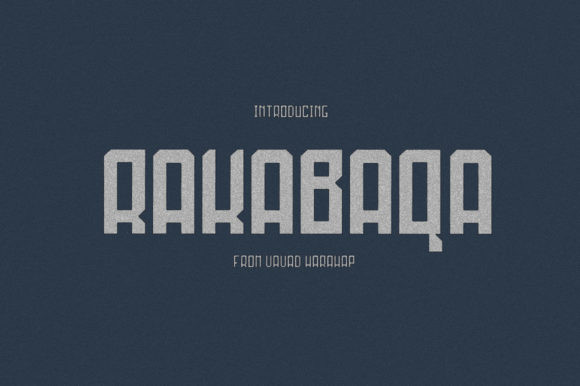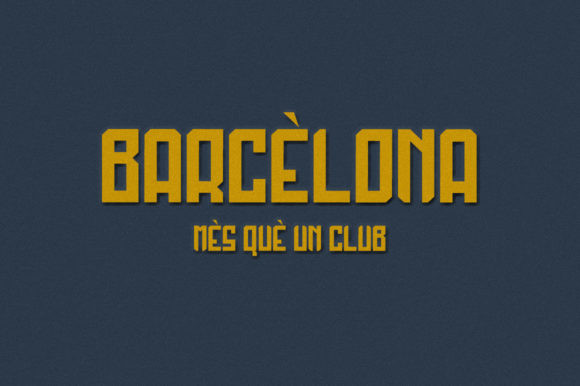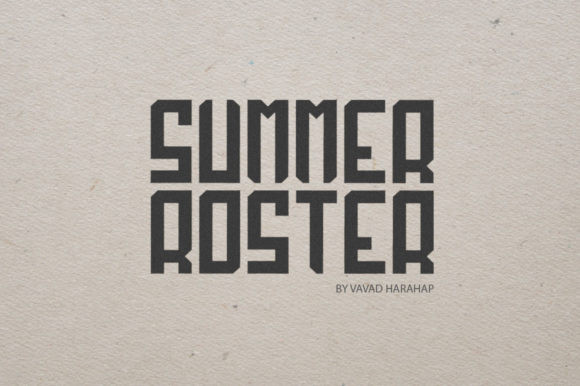
Rakabaqa Font
Rakabaqa is a unique display font. It will add a great personality and it is perfect for product logos, wedding cards, branding, vintage designs, and more.